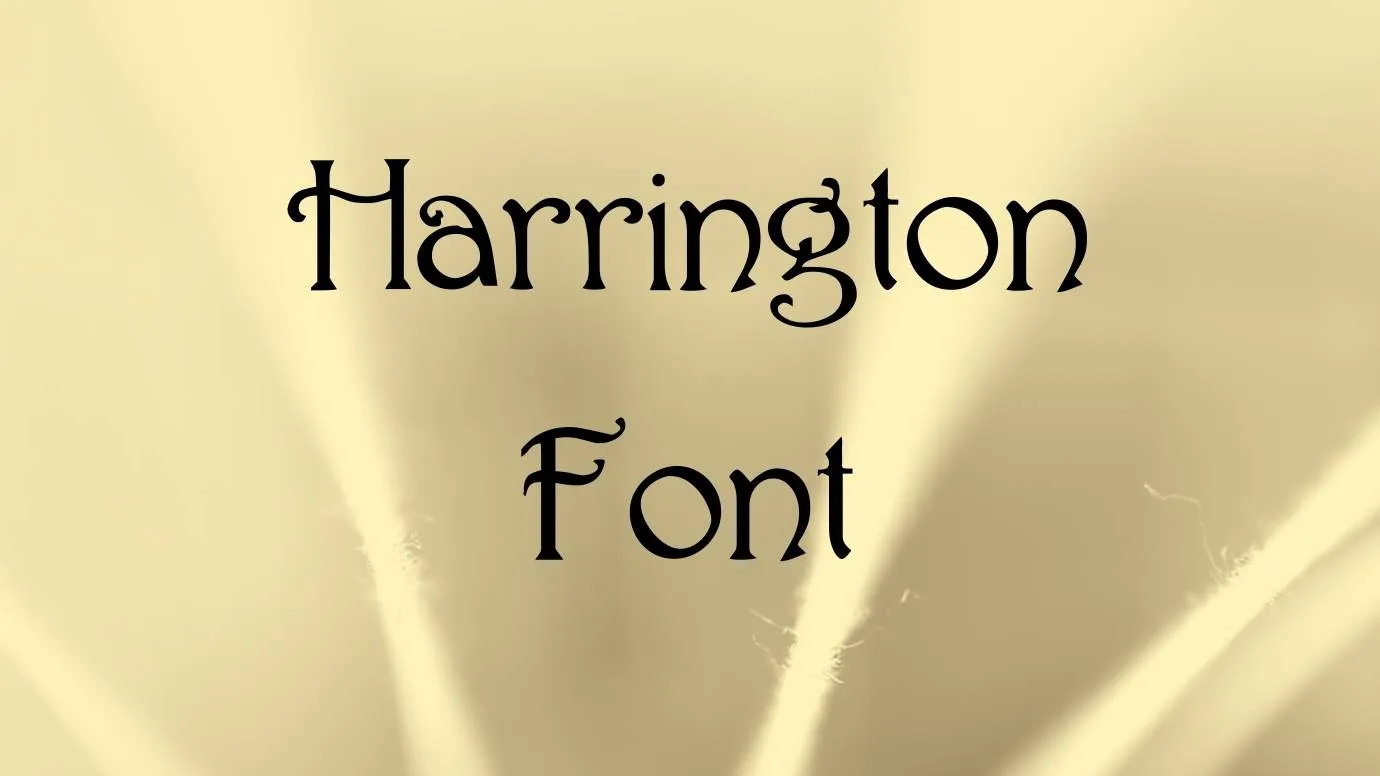
Harrington Font Family is a new and stylish handwritten typeface that comes in the fancy category. It has a beautiful and vintage look. This fancy font was designed by David Berlow. This typeface was copyrighted by Microsoft.